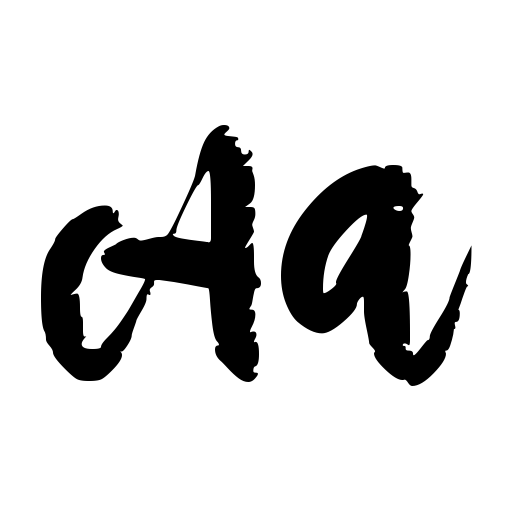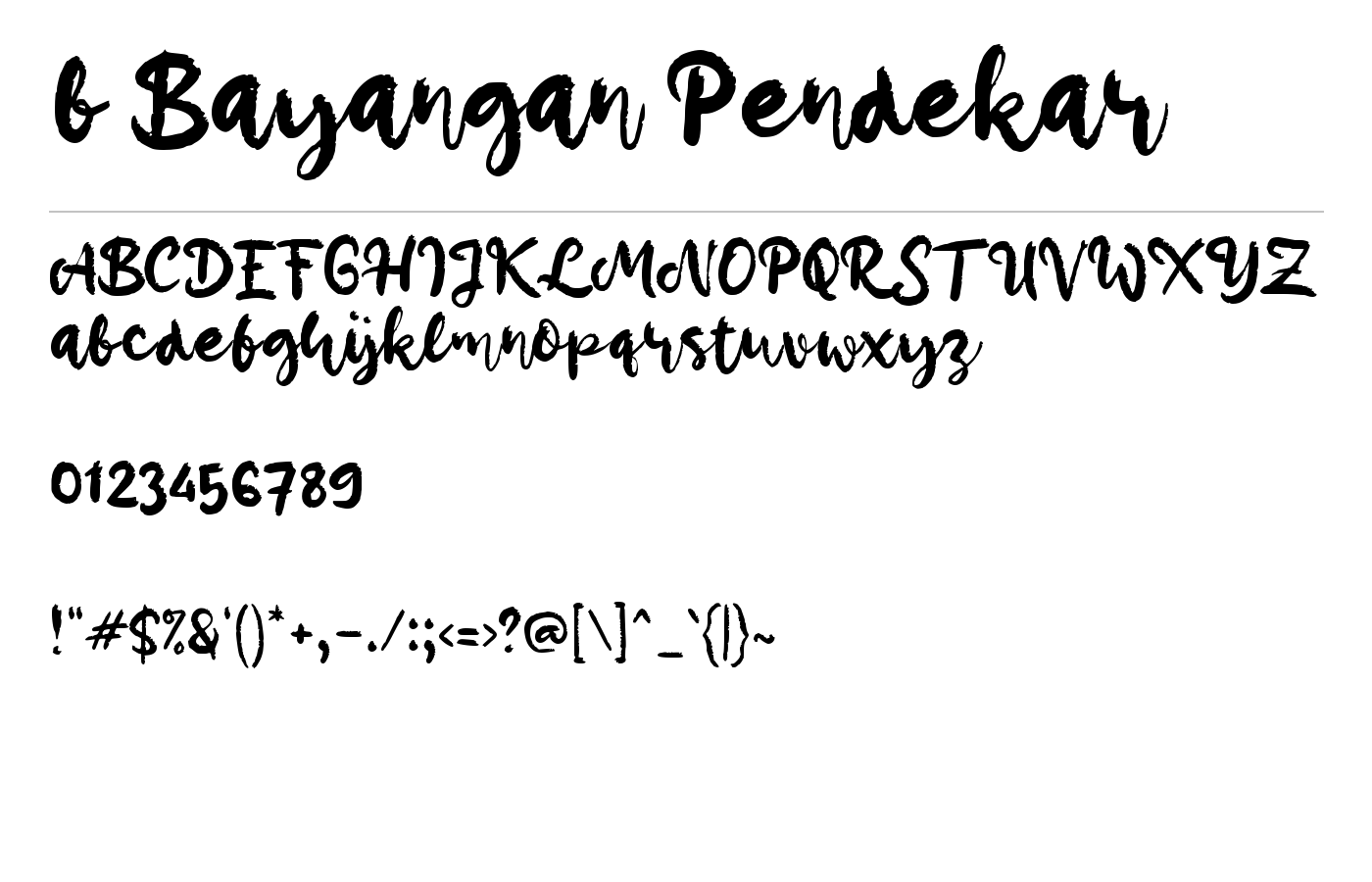
Bayangan Pendekar is a bold, brush-script font that exudes a lively and handcrafted feel with its textured, uneven strokes and dynamic letterforms. Its casual, artistic style makes it perfect for creative branding, posters, and headlines, where a personal and energetic touch is desired, capturing attention with its distinctive, organic charm.
b Bayangan Pendekar Font
About b Bayangan Pendekar Font
| Font family | b Bayangan Pendekar Font |